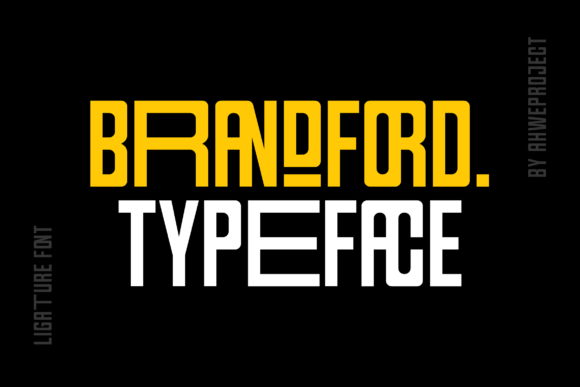
I still remember the frustration of working on a logo design project, hours spent searching for the ideal font. My client wanted something bold, yet elegant; simple, yet distinctive. I scoured font libraries, but nothing seemed quite right. That’s when I stumbled upon the Brandford Font – a game-changer for designers, crafters, and creative hobbyists alike! ✨
First Impressions: A Review of Brandford Font
- ✨ Simple sans serif design that’s both clean and modern
- ✅ Ligatures and alternates galore – perfect for adding a touch of personality to your designs
- ✅ Highly versatile: works beautifully in large point sizes, but still shines in smaller sizes
- ✅ Ideal for logos, branding, packaging, website headers, and more!
While Brandford Font is an excellent choice, there are a few minor considerations to keep in mind: 🤔
- ⚠️ Some users may find the font’s simplicity too plain for certain projects
- ⚠️ Limited availability of language support – best suited for English and similar languages
The Story Behind Brandford Font
While the true origins of Brandford Font are unclear, it’s easy to imagine a designer crafting a font with the intention of creating something both simple and distinctive. Perhaps they wanted to create a font that would allow designers to focus on their creative vision, without the font overpowering the design. Whatever the inspiration, Brandford Font has certainly made its mark on the design world! 🎨
Q: What makes Brandford Font suitable for large point sizes?
A: Its simple sans serif design and carefully crafted letterforms ensure that Brandford Font remains clear and legible, even at large sizes. ✨
Q: Does Brandford Font support non-English languages?
A: While Brandford Font may have limited language support, it’s best suited for English and similar languages. If you need support for non-English languages, be sure to review the font’s capabilities or consider alternative fonts. 🌎
Q: Can I use Brandford Font in both digital and print designs?
A: Absolutely! Brandford Font’s versatility makes it an excellent choice for both digital and print designs, from website headers to business cards and more. 📊